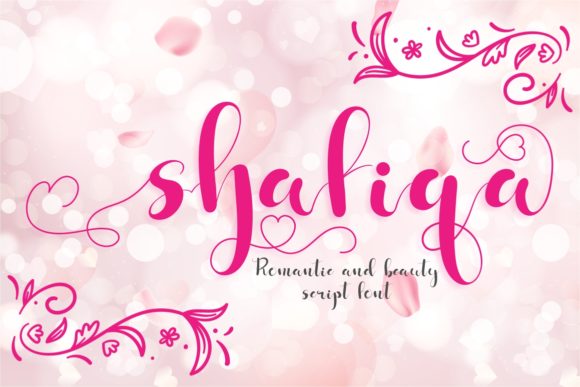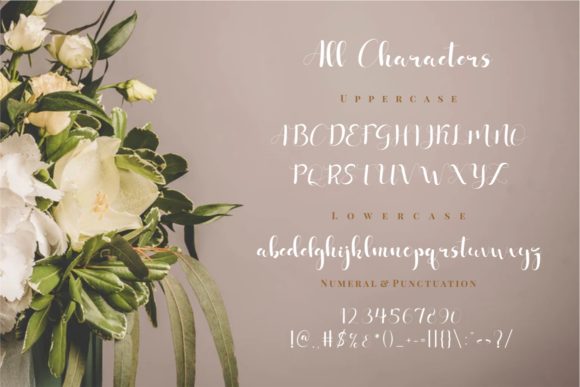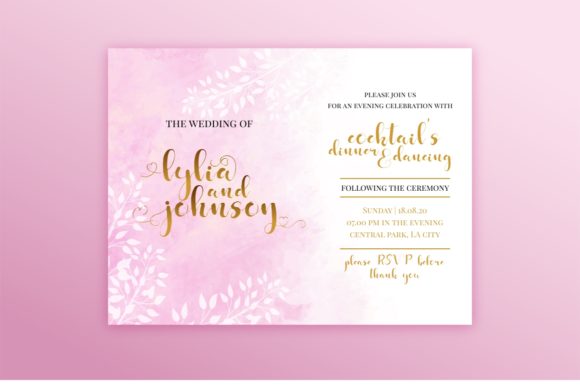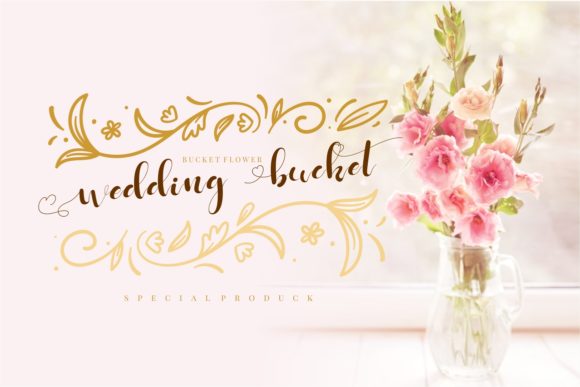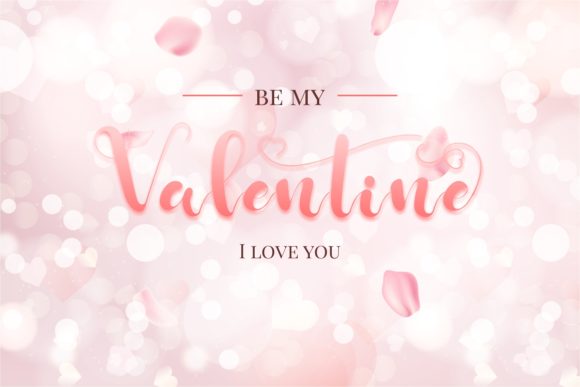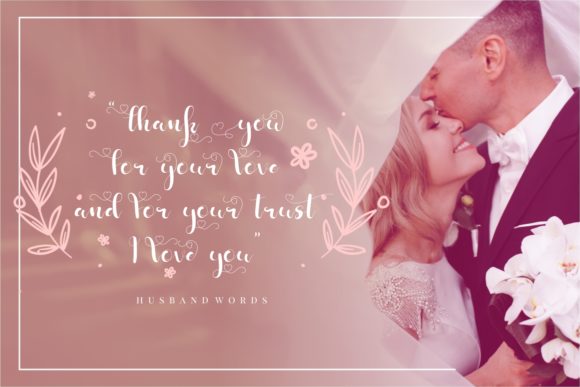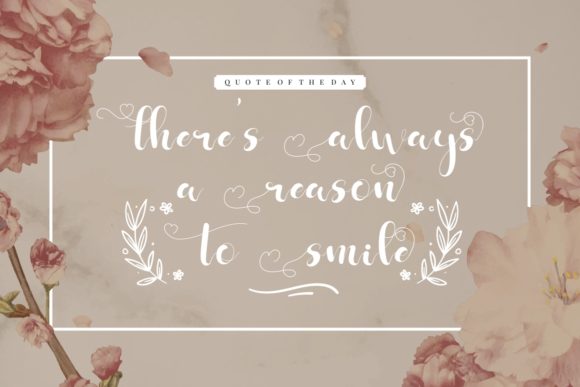
Shafiqa Font
About Shafiqa Font
Shafiqa is a new romantic and beautiful handwritten script font with a lot of versatility.
This versatility means that this font can be used in a wide variety of applications from quotes, wedding invitations, to posters – the only limit is your imagination!